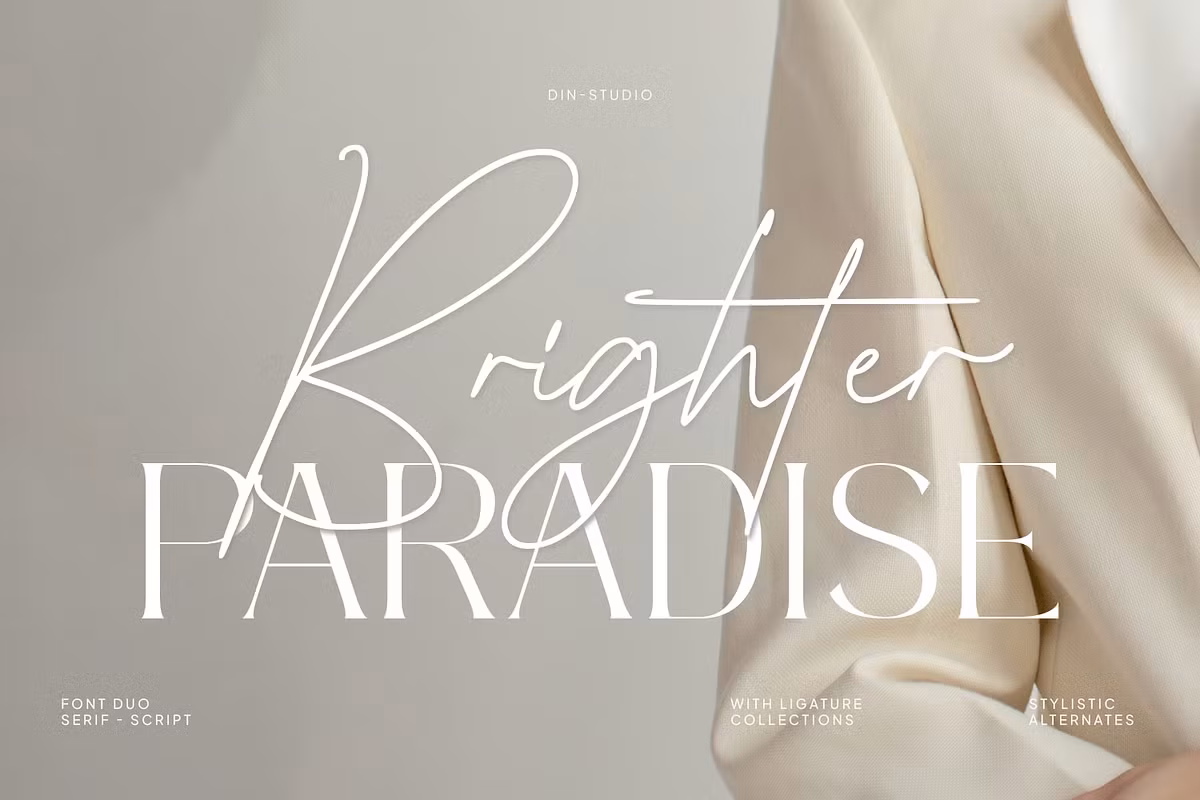
Brighter Paradise Font Free Download is a dreamy and elegant typeface that brings a tropical, handwritten charm to your designs. Perfect for wedding invitations, lifestyle branding, Instagram posts, and creative projects, this font blends casual script aesthetics with a luxurious flow that stands out effortlessly. Its natural curves and fluid lines make it a favorite among designers who want to add warmth and personality to their work.
Whether you’re creating a logo for a beachwear brand or a cover for a romance novel, Brighter Paradise delivers that soft, sun-kissed look your project deserves. The font is carefully crafted to maintain readability while still offering a stylish, handwritten vibe.